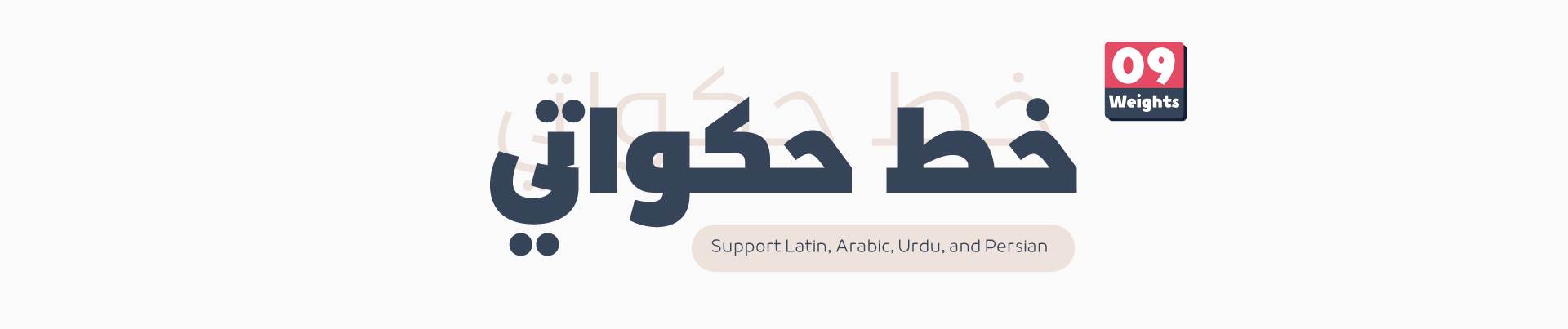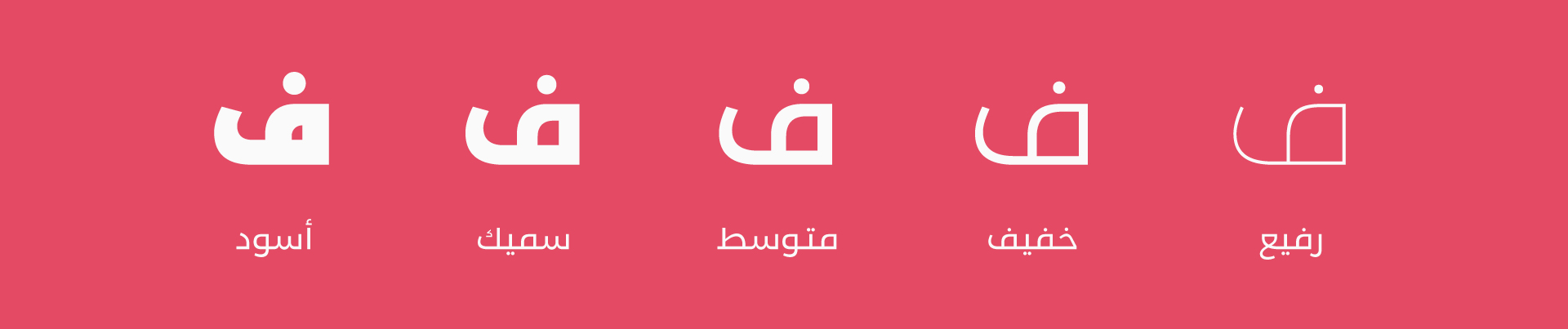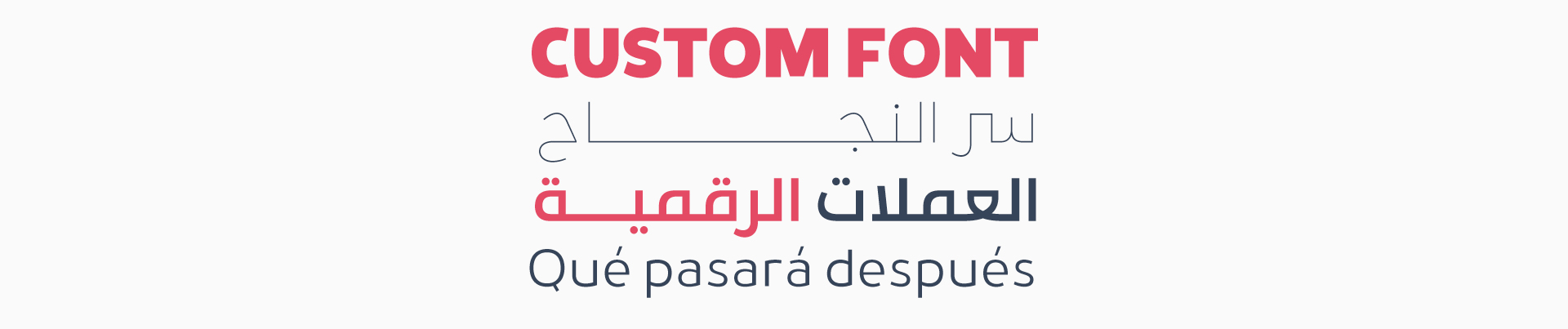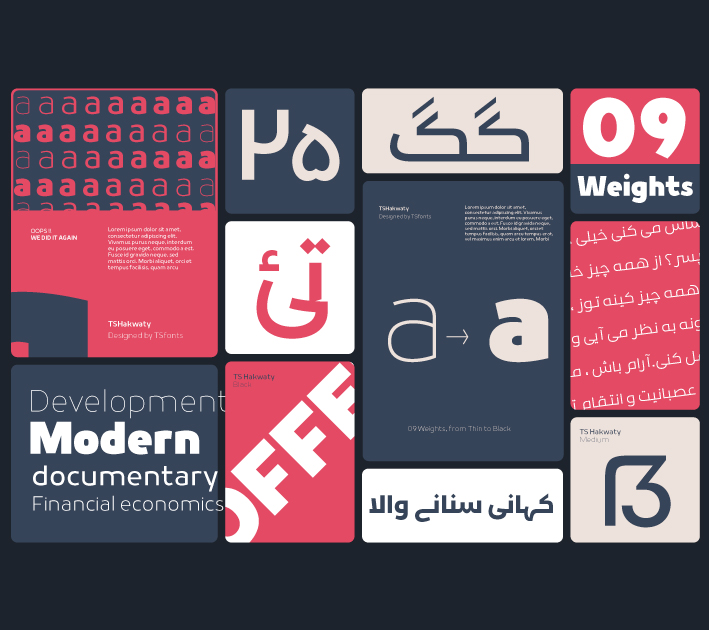
• Hakwaty Font
About Hakwaty Font
Introduction:
Hakwaty means a storyteller in Arabic. Hakwaty is suitable for large companies, news channels, electronic newspapers, and advertising agencies. Arabic letters are inspired by the Kufic script.
Weights and Languages:
Hakwaty Font consists of 9 weights. It supports Latin, Arabic, Persian, and Urdu.
Usage:
In headlines, texts, websites, posters, visual identities, and printing.
Designing & Developing:
TSfonts Type Foundry
Tarek Alsawwa